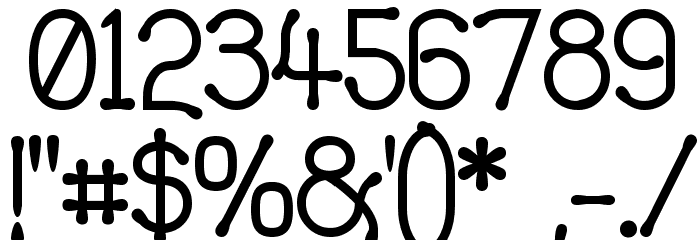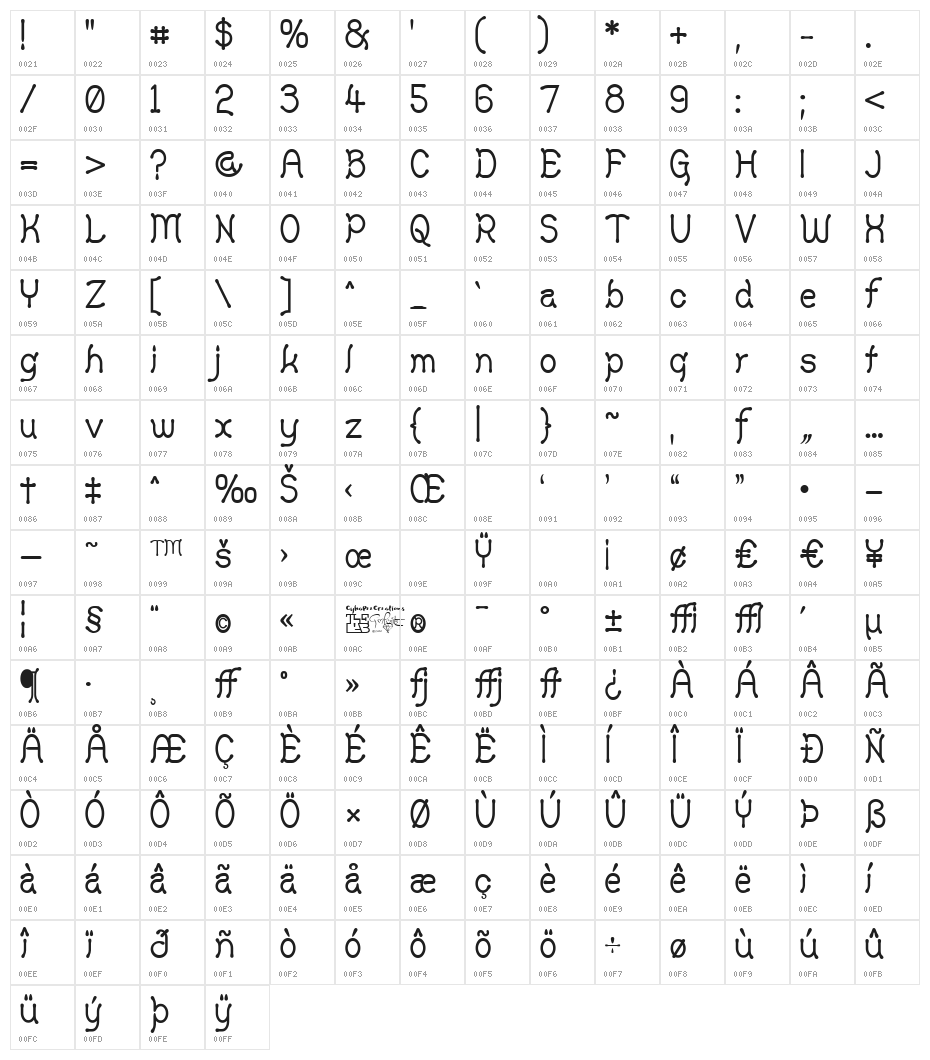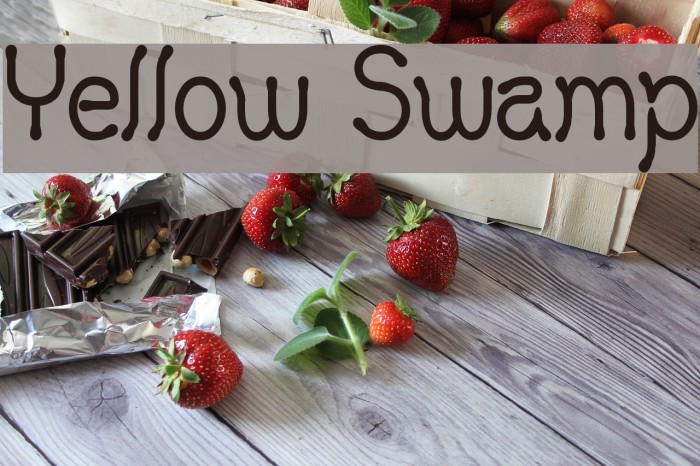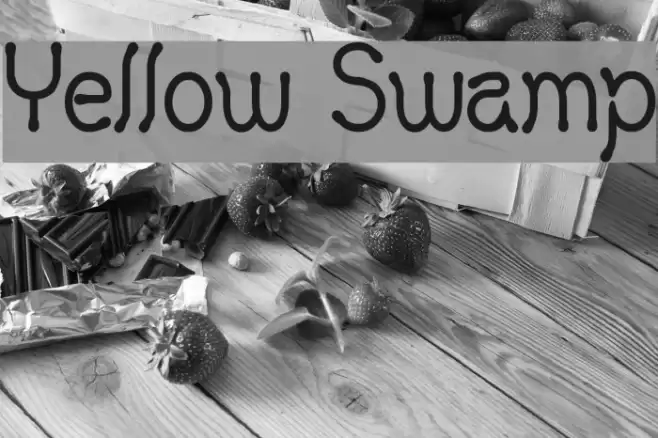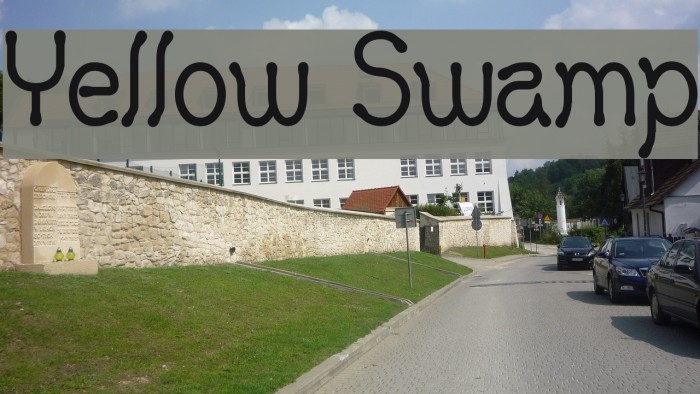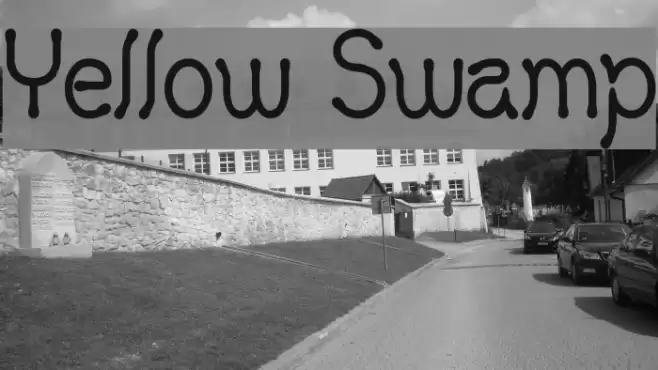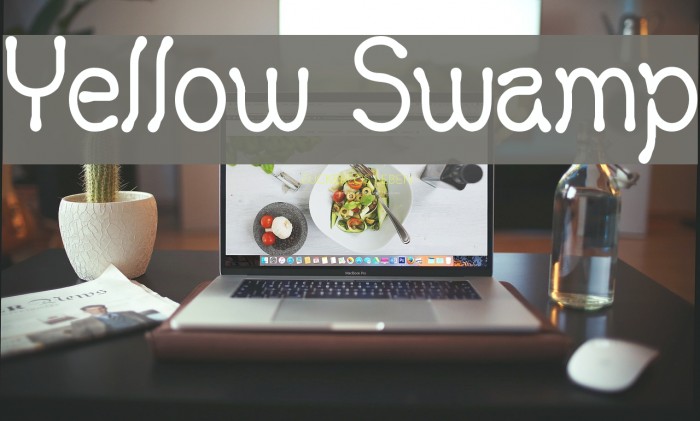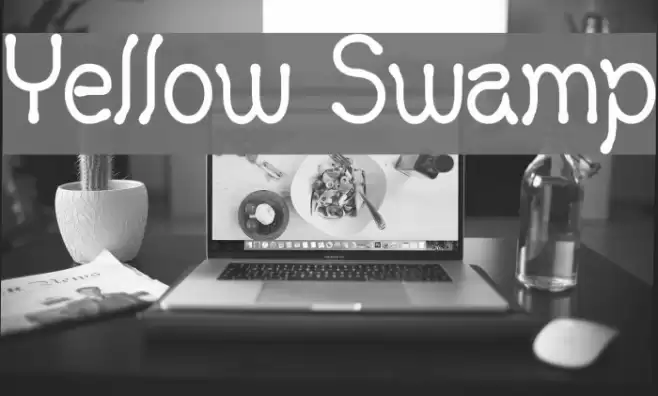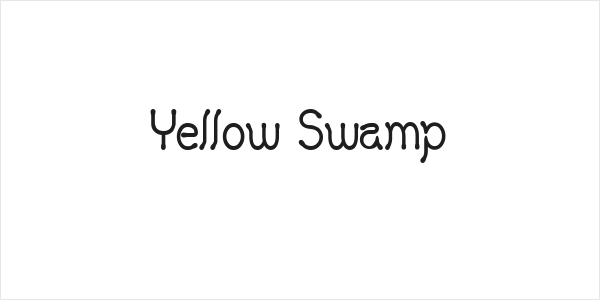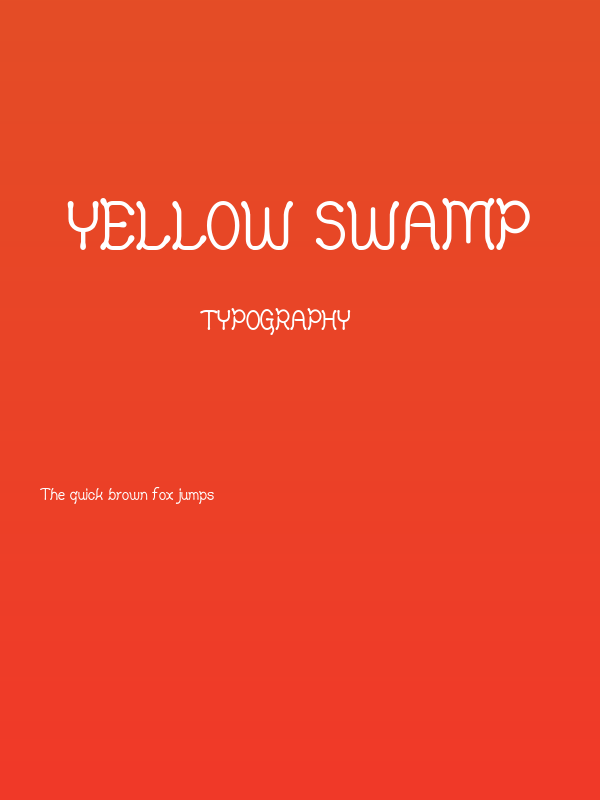
Yellow Swamp Font
This font features a playful and whimsical design, characterized by its rounded and slightly irregular letterforms. The strokes are consistent in thickness, giving it a uniform appearance, while the curves and loops add a touch of personality and charm. The uppercase and lowercase letters maintain a cohesive style, with a slight bounce that enhances its casual and friendly feel. The numerals and special characters follow the same design principles, ensuring a harmonious look across all glyphs. This font is well-suited for projects that require a lighthearted and approachable aesthetic.
| Proposed Projects | Ideal for children's books, greeting cards, playful branding, and casual invitations. |